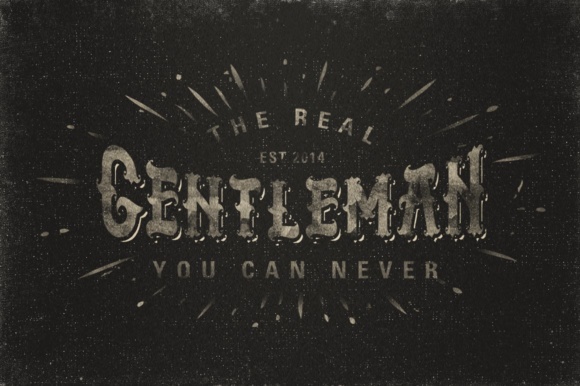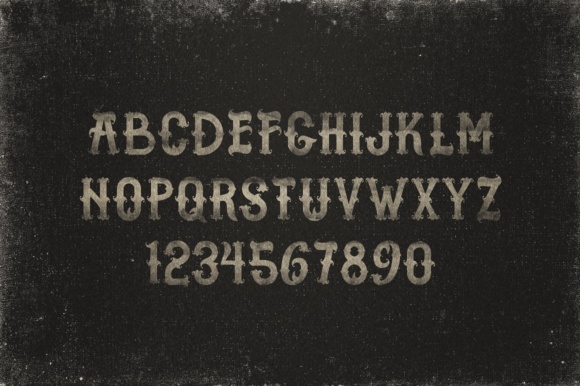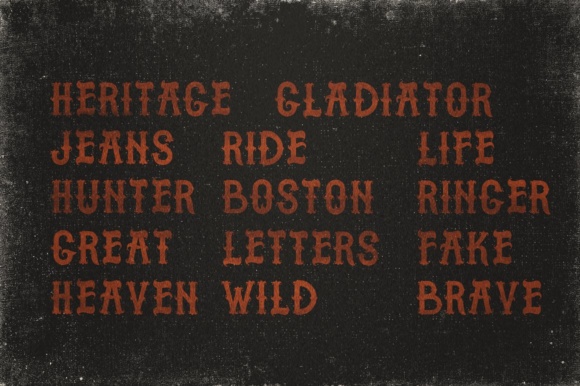
Introduction to Divergent Font
The Divergent is a striking typeface which was inspired from the shape of clown attires.
It works perfect for normal size texts and short words .